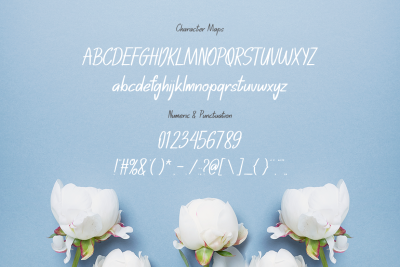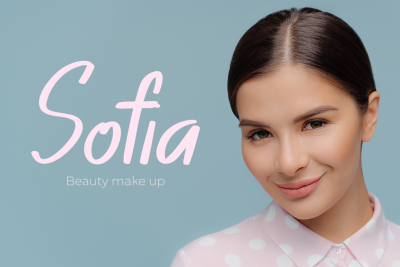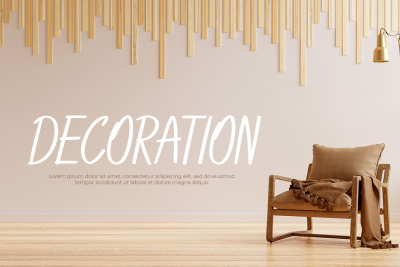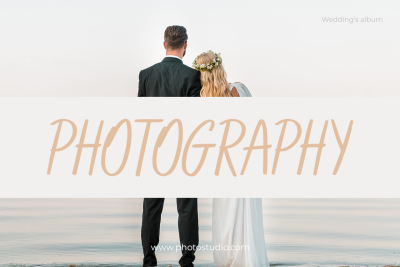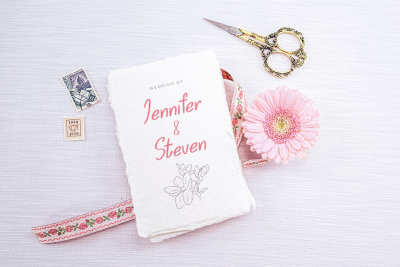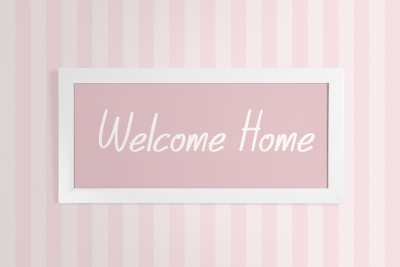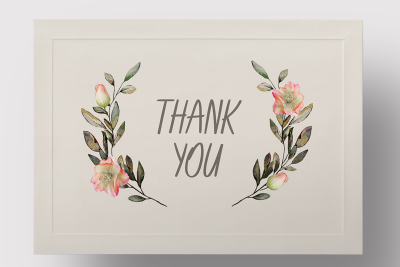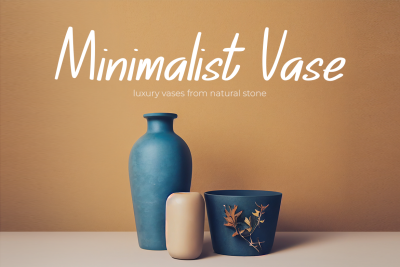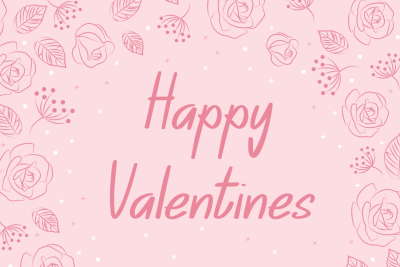
Handwriting Font Anthony is a modern script typeface that seamlessly blends natural hand-lettering charm with a smooth, flowing design. Not only do its elegant curves and refined strokes create a sophisticated yet approachable look, but they also make it ideal for projects needing a personal touch. Furthermore, the font captures handwritten text’s essence with a stylish balance of fluidity and structure, ensuring both readability and aesthetic appeal.
Moreover, Handwriting Font Anthony is highly versatile. It features well-balanced letterforms, beautiful ligatures, and a natural writing rhythm. Whether used for branding, invitations, or digital content, this font exudes warmth and personality. In addition, the carefully crafted letter connections and stylish swashes add an artistic and sophisticated feel to any design.
Beyond aesthetics, Handwriting Font Anthony ensures excellent legibility. Consequently, it works well for both print and digital applications. Its organic, flowing nature pairs well with various design elements, from minimalist layouts to intricate compositions. Furthermore, this script typeface is not only visually appealing but also functional, seamlessly integrating into creative projects.
Who Should Use Handwriting Font Anthony?
Handwriting Font Anthony is perfect for designers, entrepreneurs, and content creators seeking a sophisticated and artistic script font. Its elegant yet casual nature makes it a great fit for:
- Branding & Logos: Ideal for luxury brands, boutiques, fashion labels, and beauty businesses seeking a refined handwritten aesthetic.
- Wedding & Event Invitations: Since it has delicate, graceful strokes, it is perfect for wedding stationery, greeting cards, and formal event invitations.
- Social Media & Marketing Materials: Additionally, it is a great choice for Instagram posts, Pinterest graphics, YouTube thumbnails, and stylish digital ads.
- Product Packaging & Labels: Whether for handmade goods, cosmetics, or artisan food products, this font adds elegance to packaging.
- Creative Projects & Personal Use: It is also perfect for scrapbooking, journaling, and DIY crafts needing a handwritten touch.
Ultimately, Handwriting Font Anthony is a must-have for anyone who appreciates hand-lettering’s beauty. Not only does it infuse designs with warmth, elegance, and personality, but it also ensures a polished look. Whether you are a professional designer or a hobbyist, this font will undoubtedly elevate your creative projects with its stylish handwritten appeal.